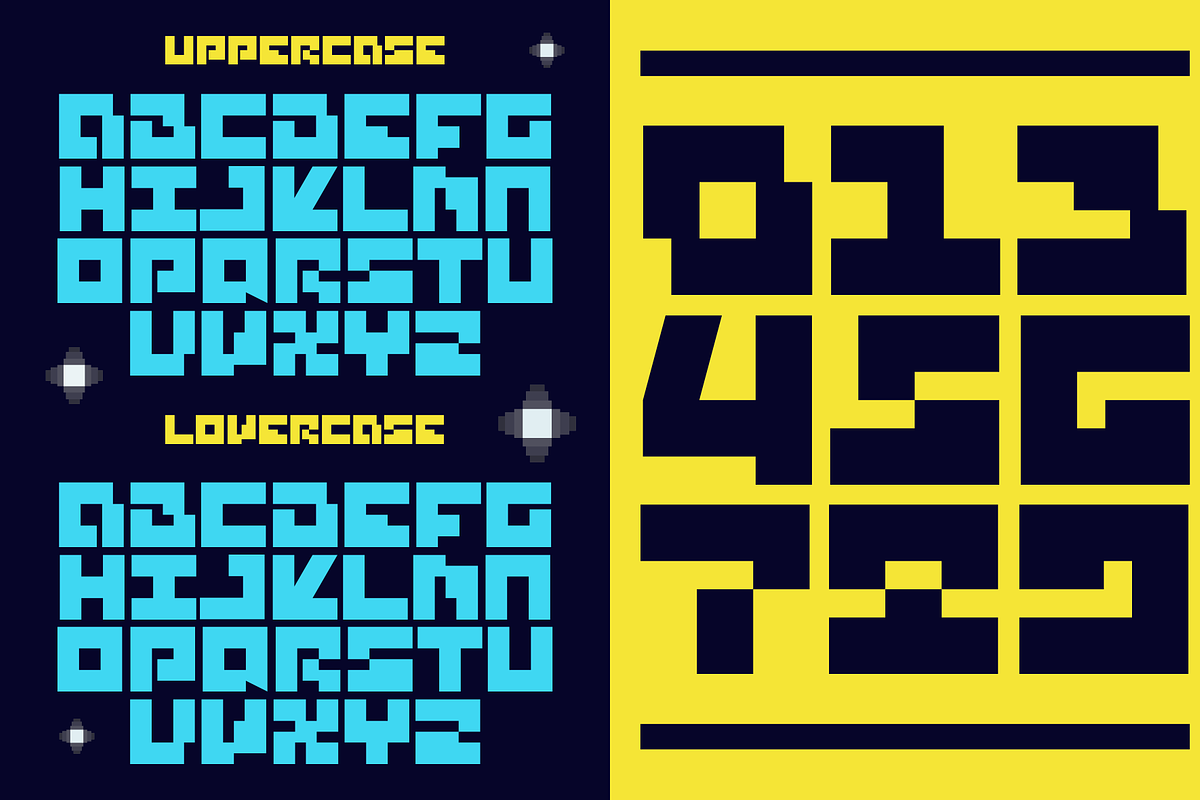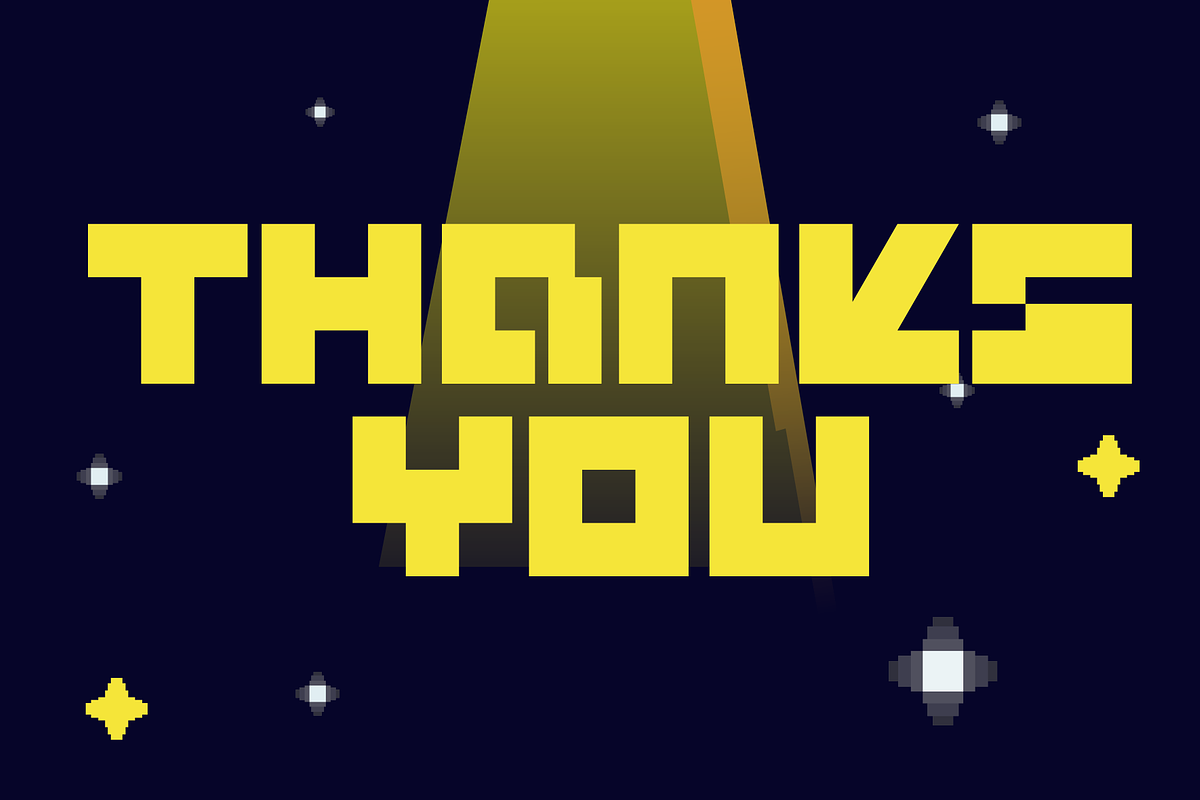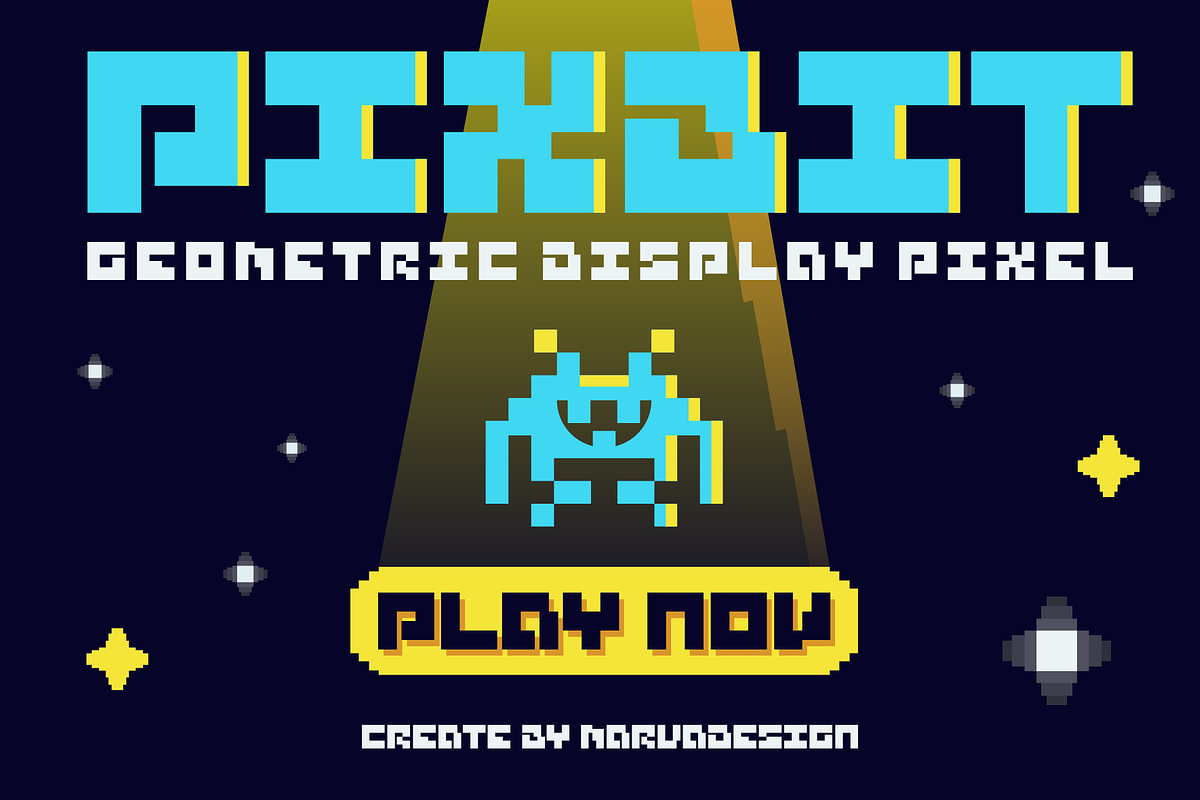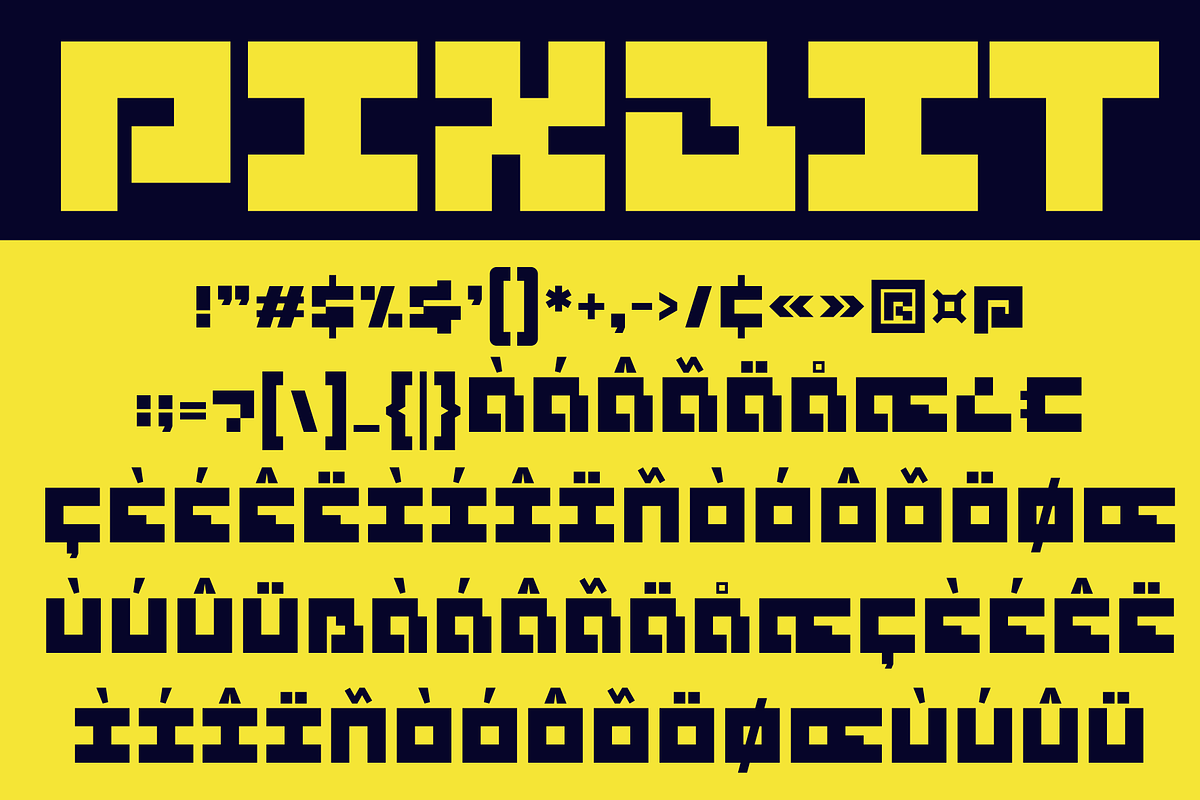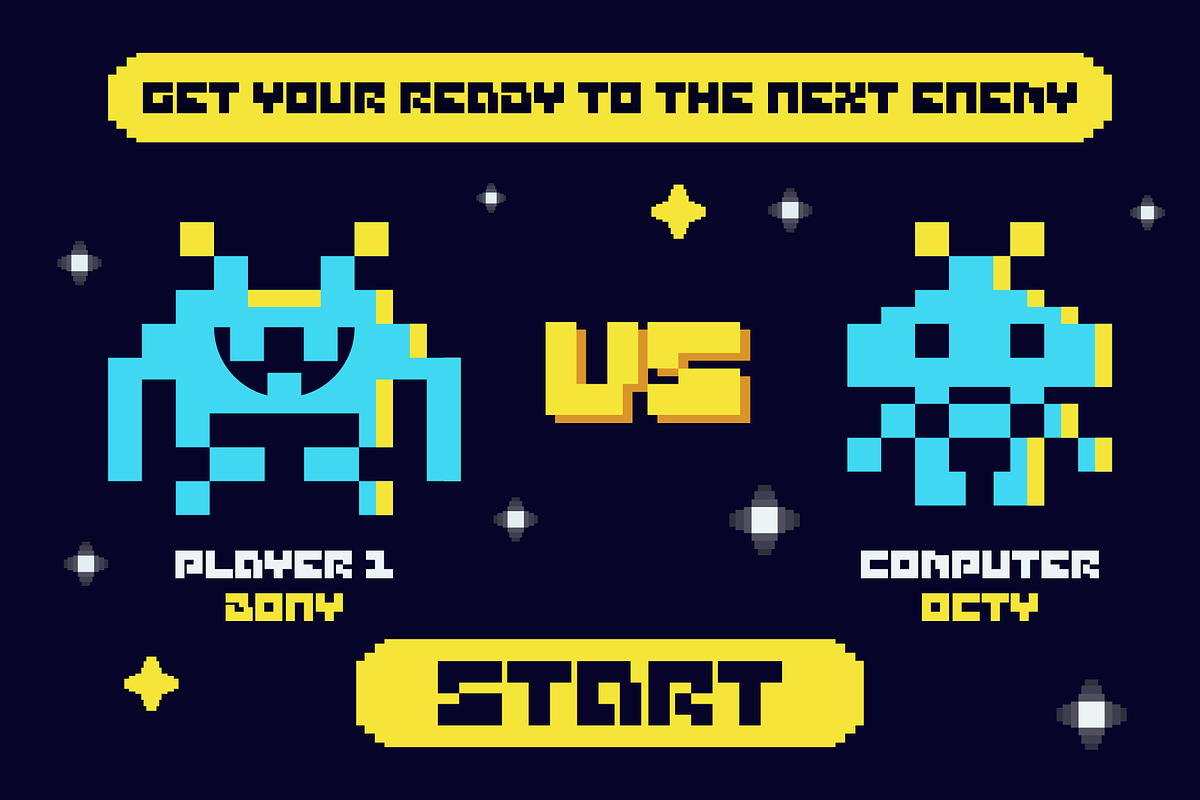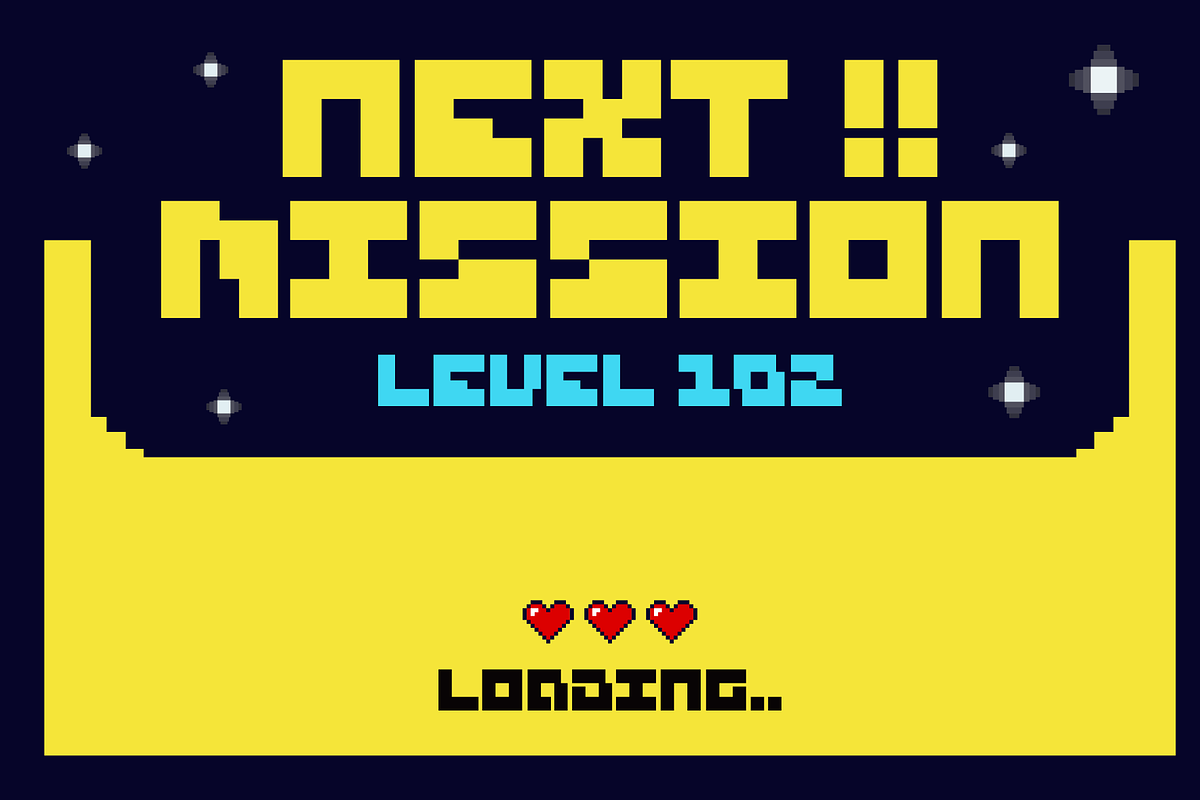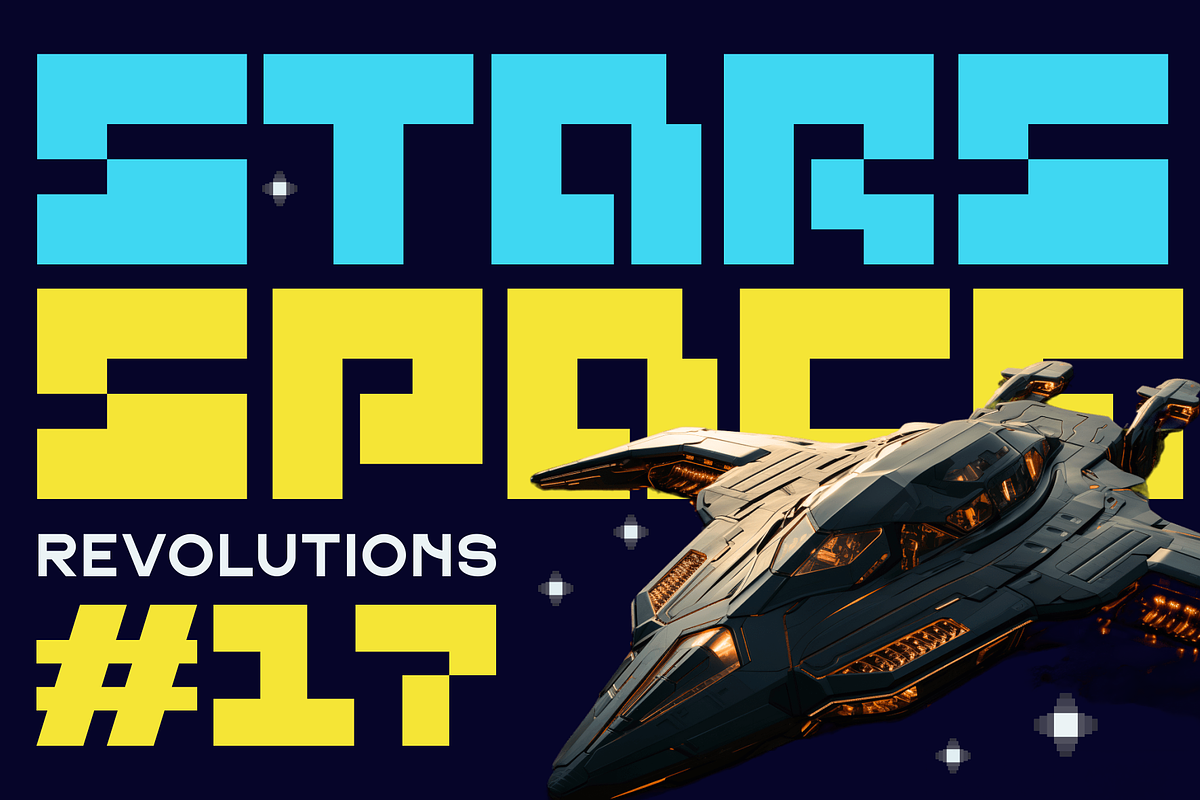
Pixbit - A Geometric Display Pixel
Introducing our new product Pixbit Font - Modern Font is a bold and authentic display font. The font is suitable for any branding project like logo, Template Design, Product and many more. outstanding in a wide range of contexts.